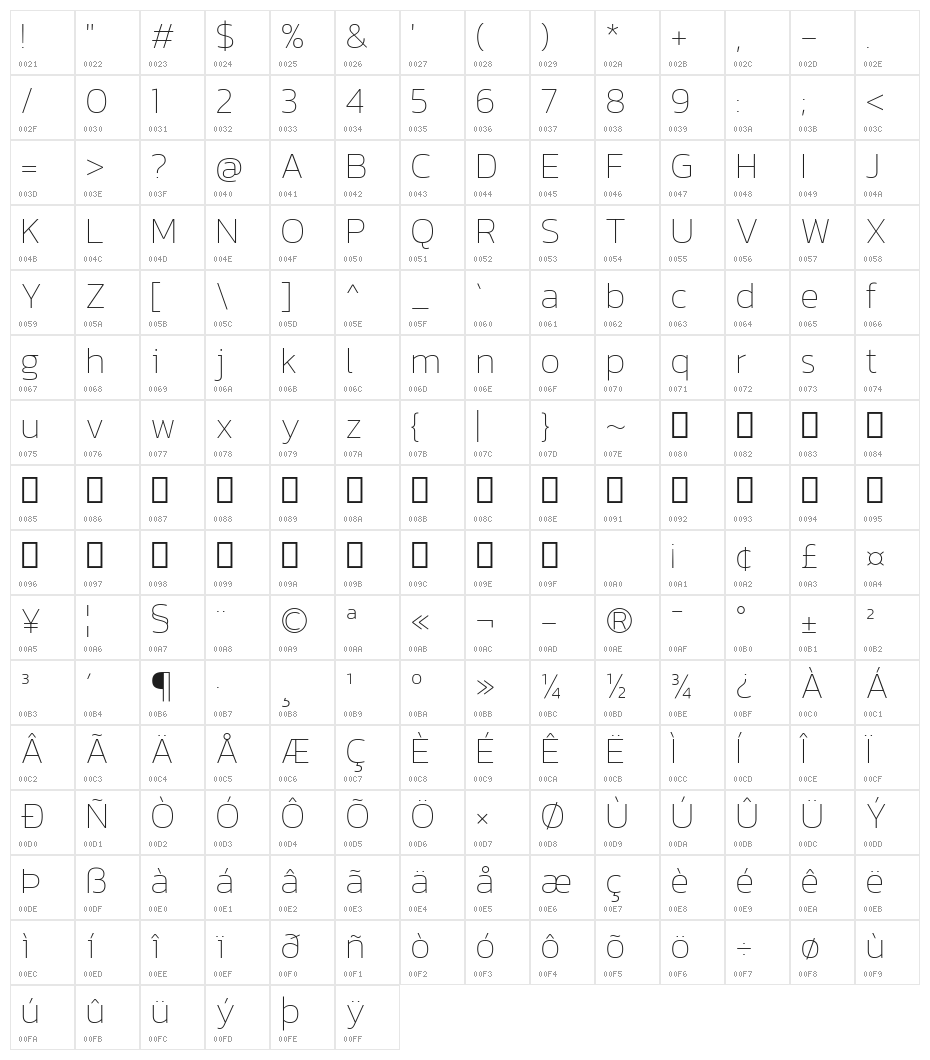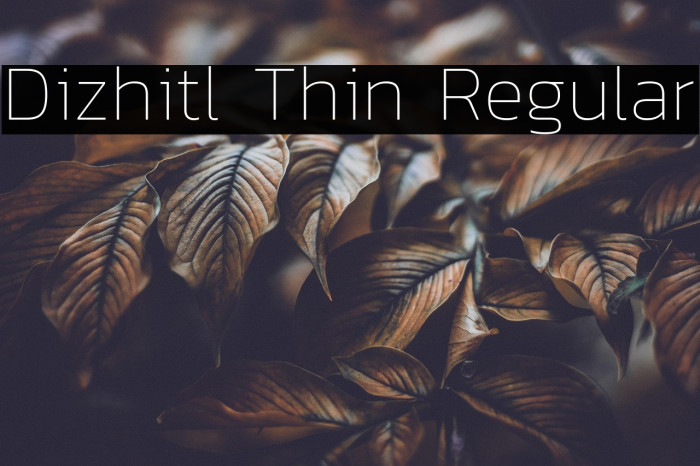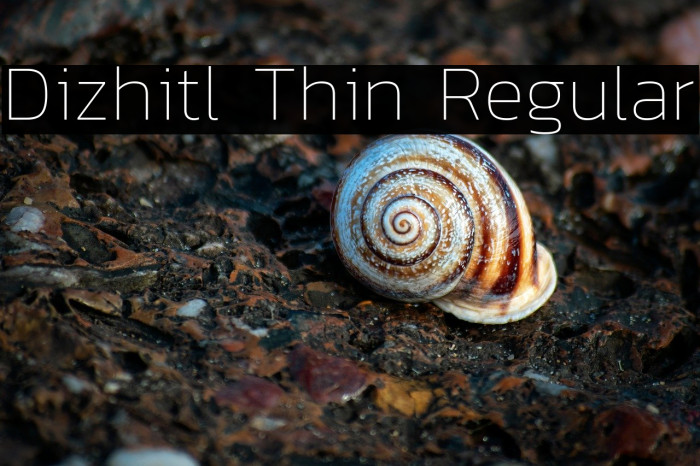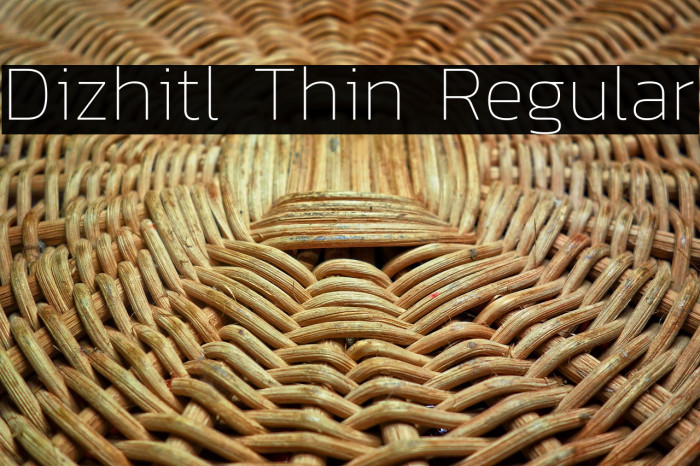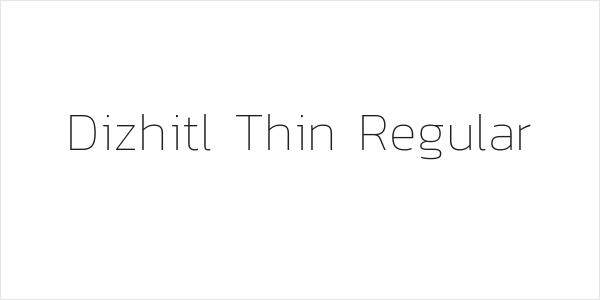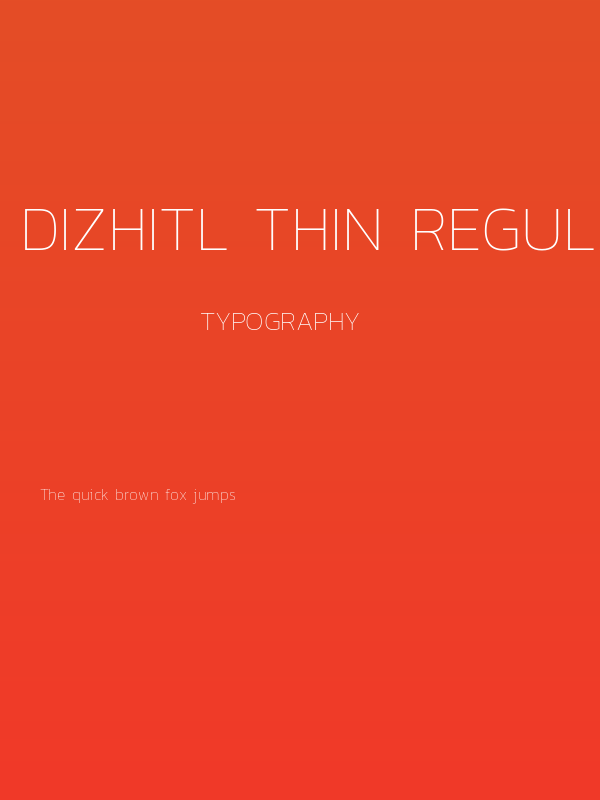
Dizhitl Thin Regular Font
Dizhitl Thin Regular Description
This font features a clean and minimalist design with thin, uniform strokes that give it a modern and elegant appearance. The characters are well-proportioned, with a consistent height and width that enhances readability. The uppercase letters are slightly taller than the lowercase, providing a subtle distinction that adds to its refined look. The numerals are clear and easy to read, making them suitable for various applications. The special characters are designed with the same attention to detail, ensuring a cohesive overall style. This font's simplicity and clarity make it versatile for both digital and print media.